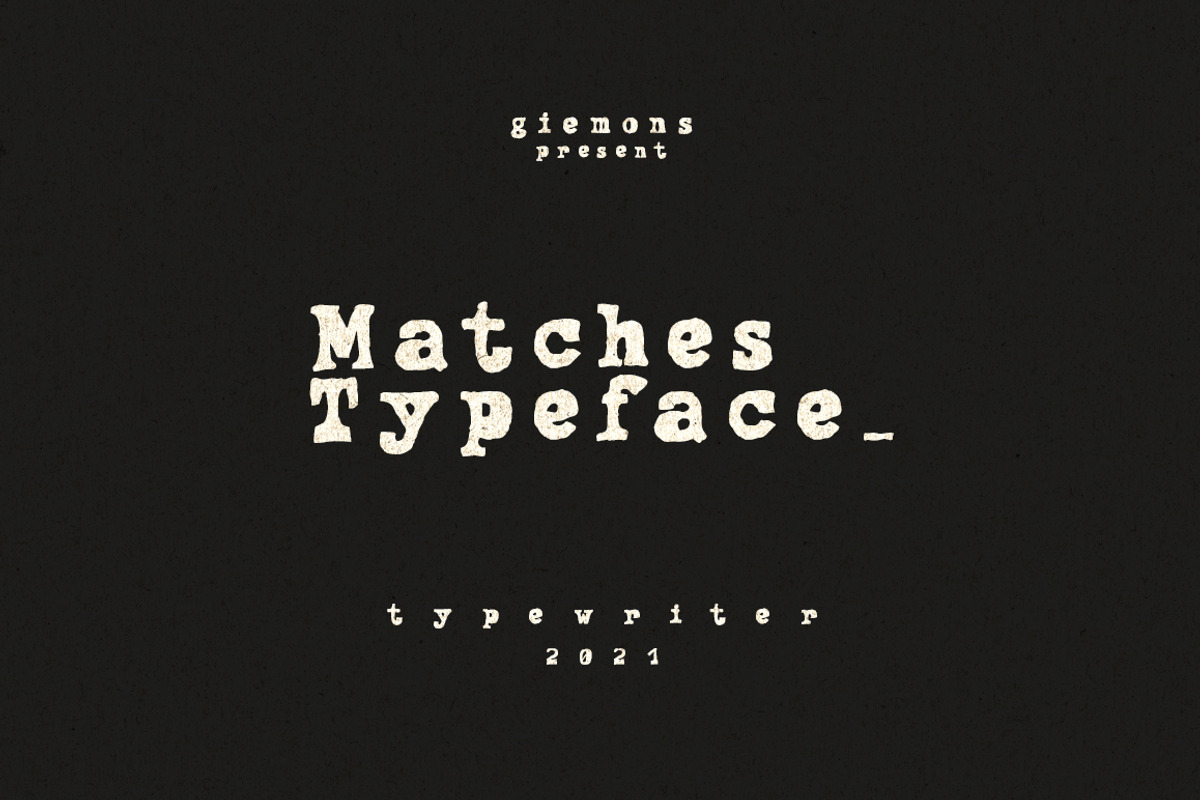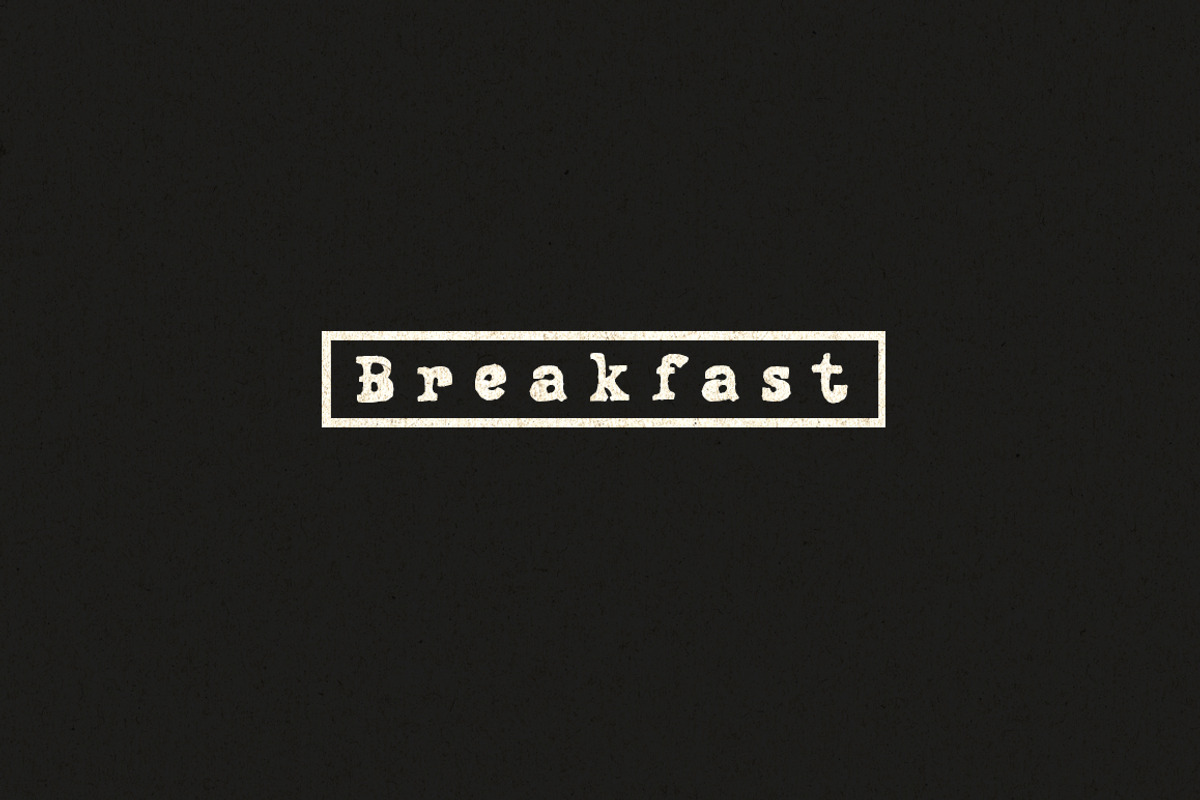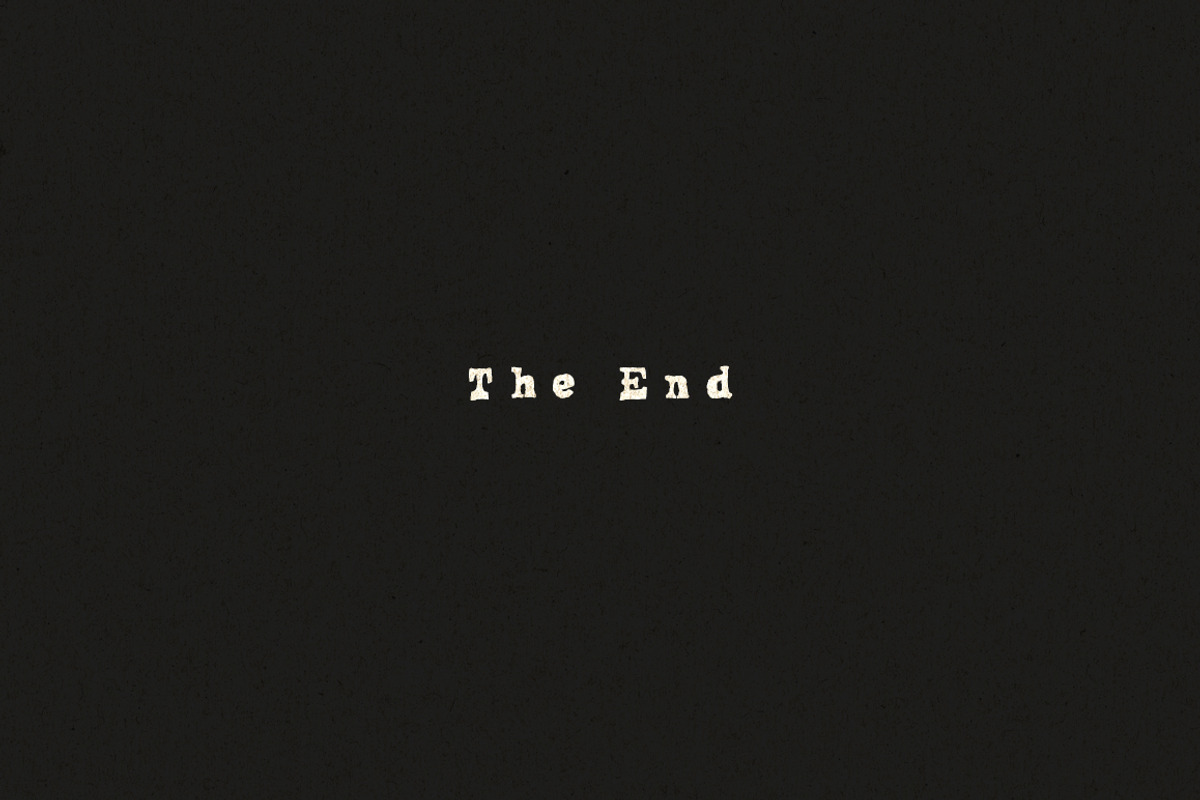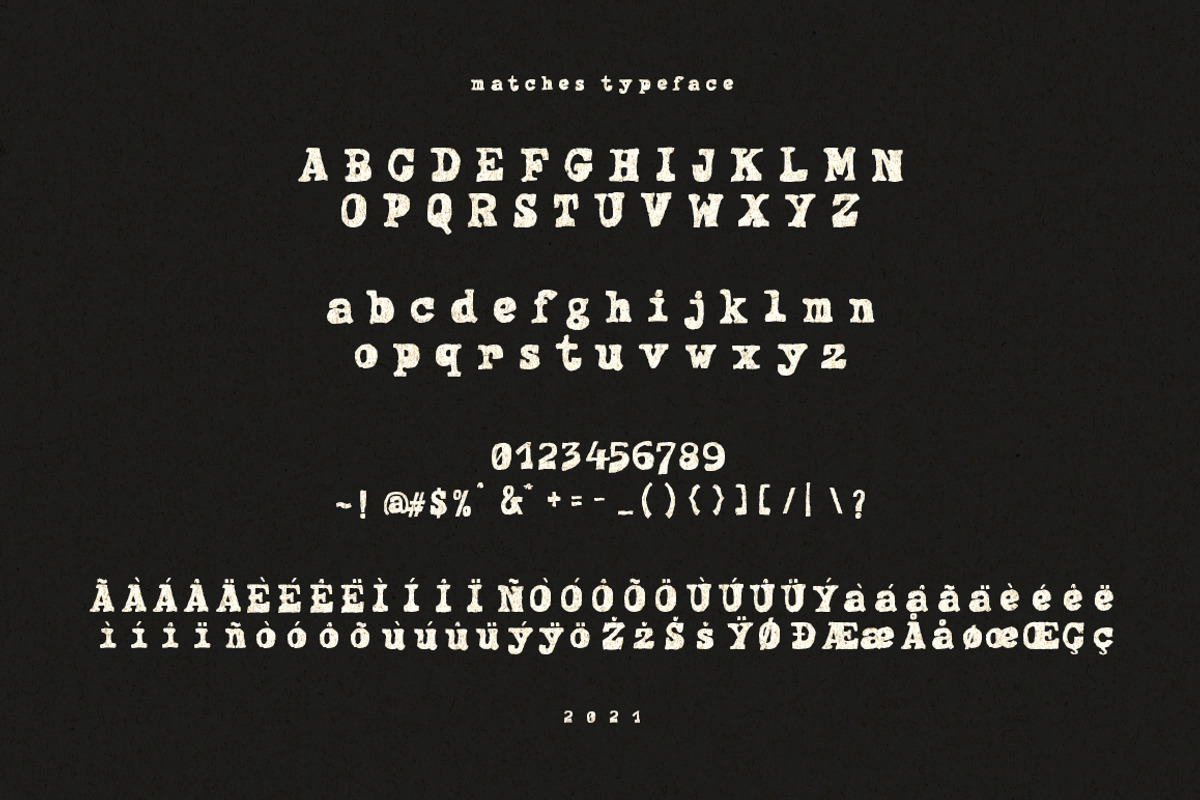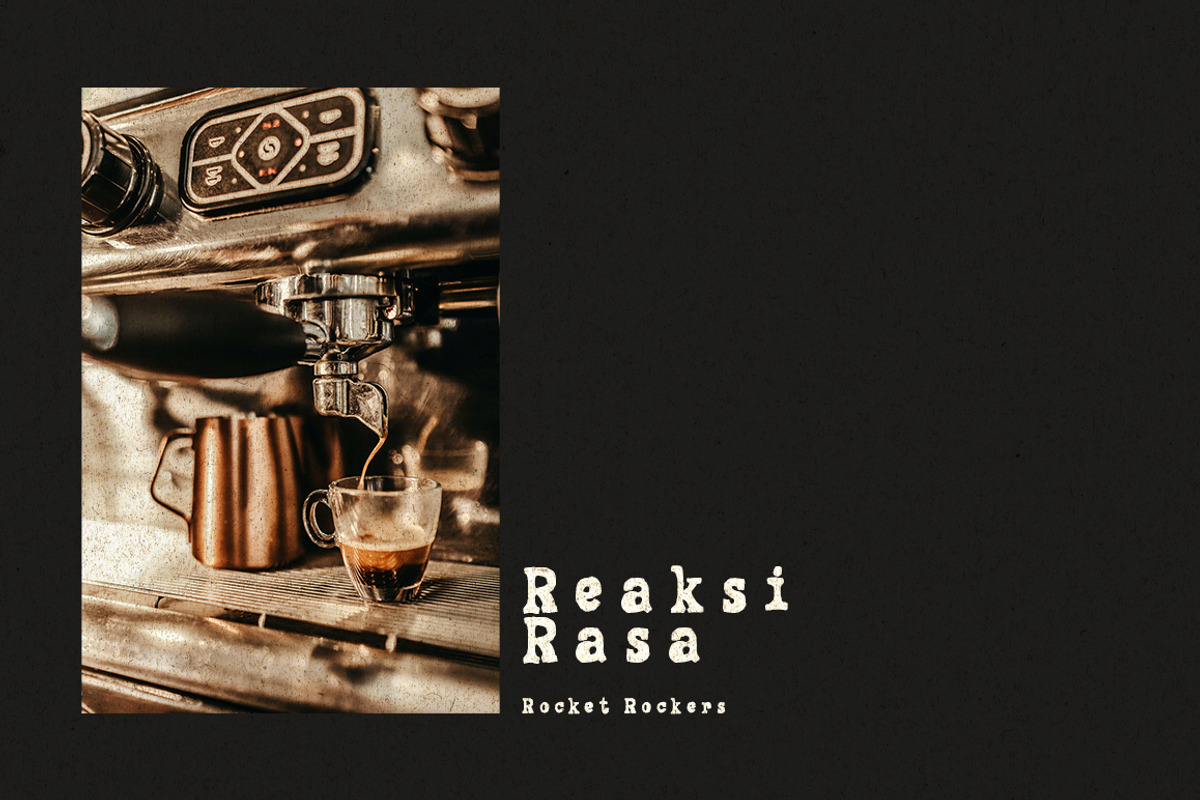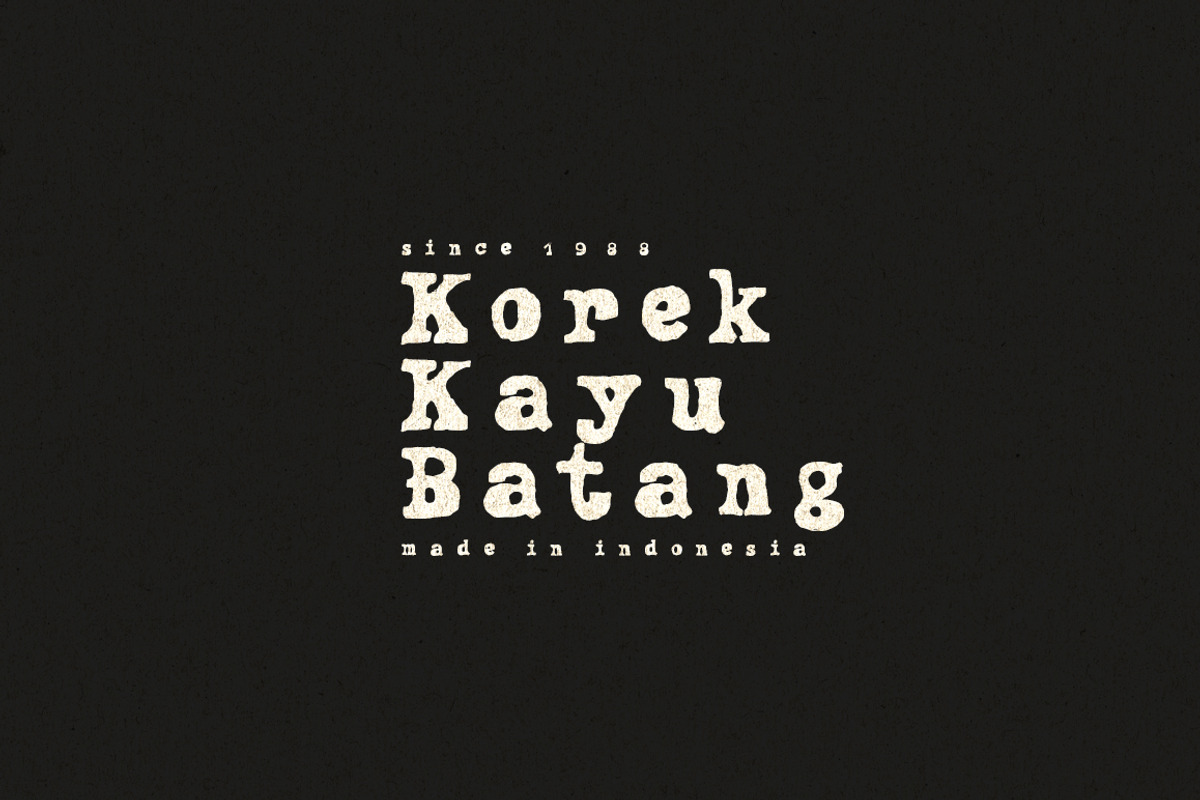
Matches Typeface
a Matches Typeface is typewriter Font. Can make it easier to convey the message in your design. Use for awesome display, Logo, labeling, clothing, movie sceen, poster, movie title, gigs, album covers, logos, and much more.